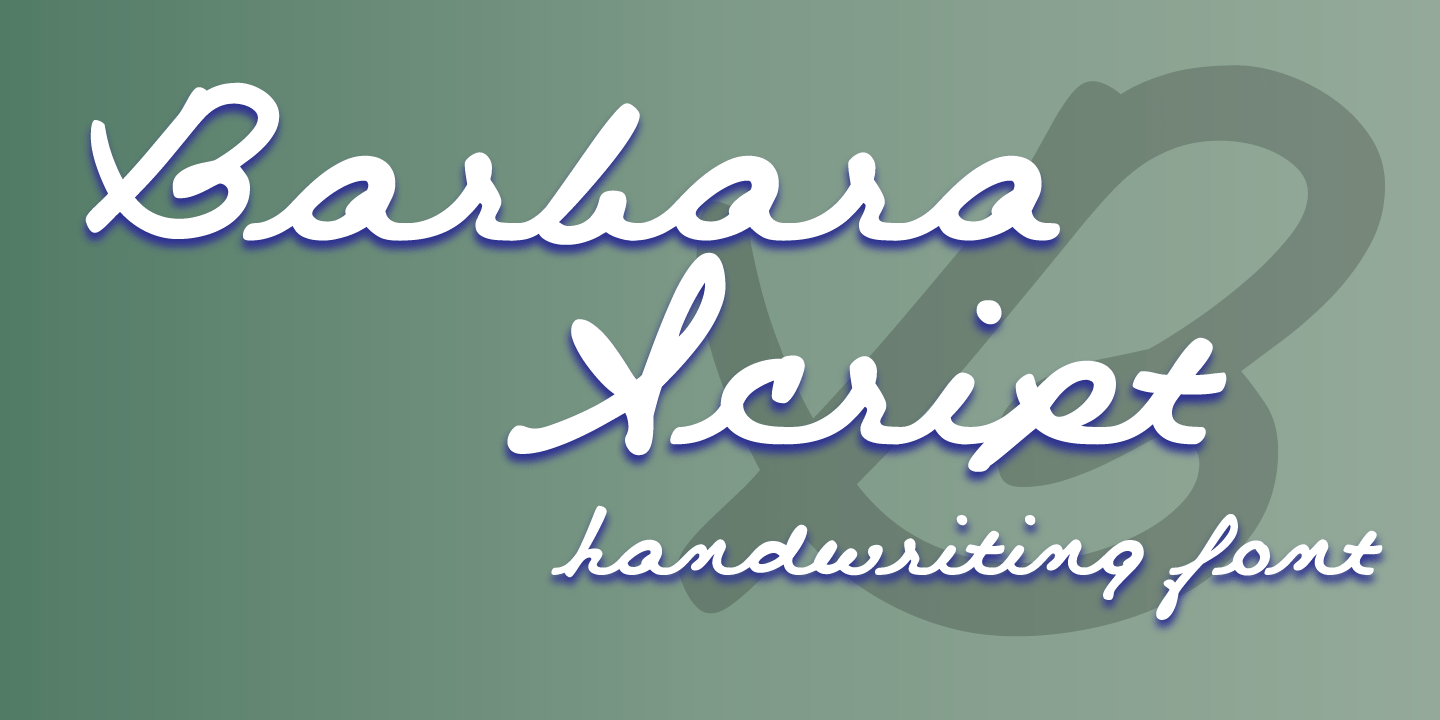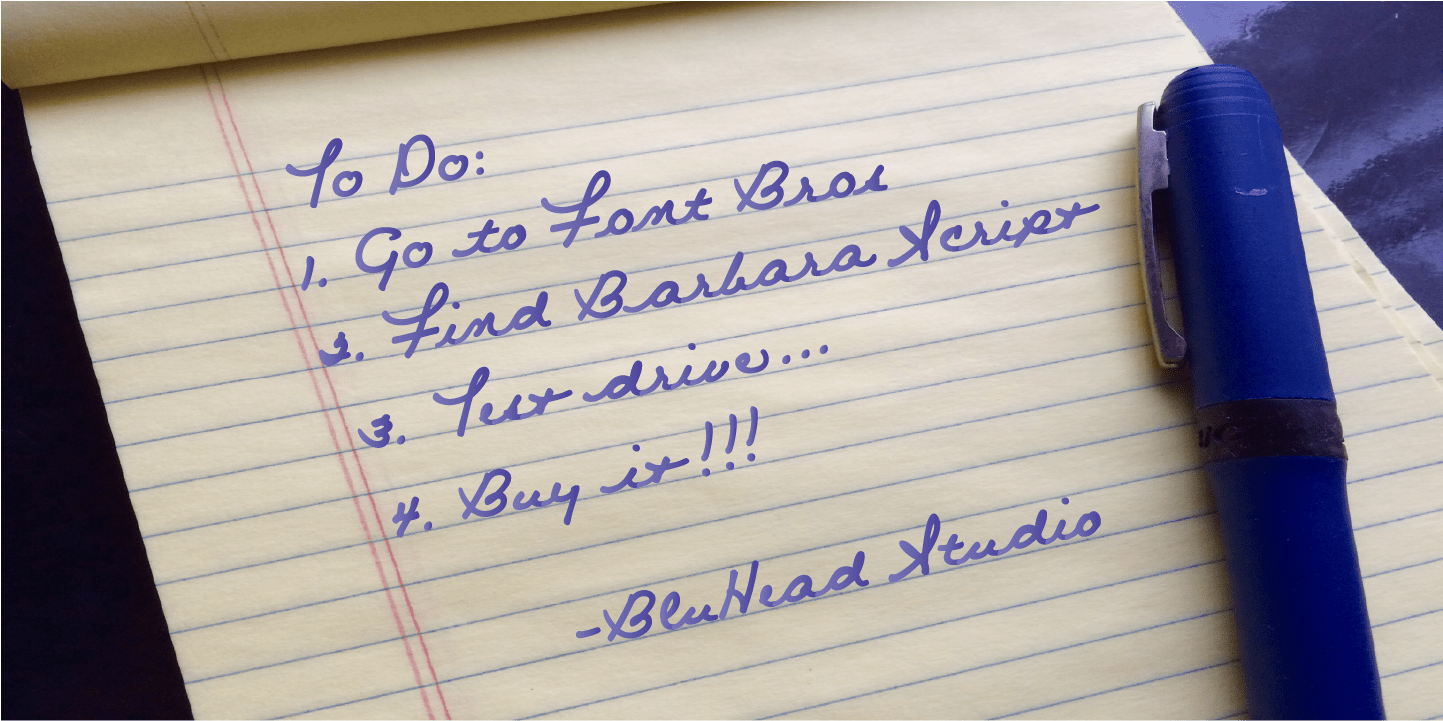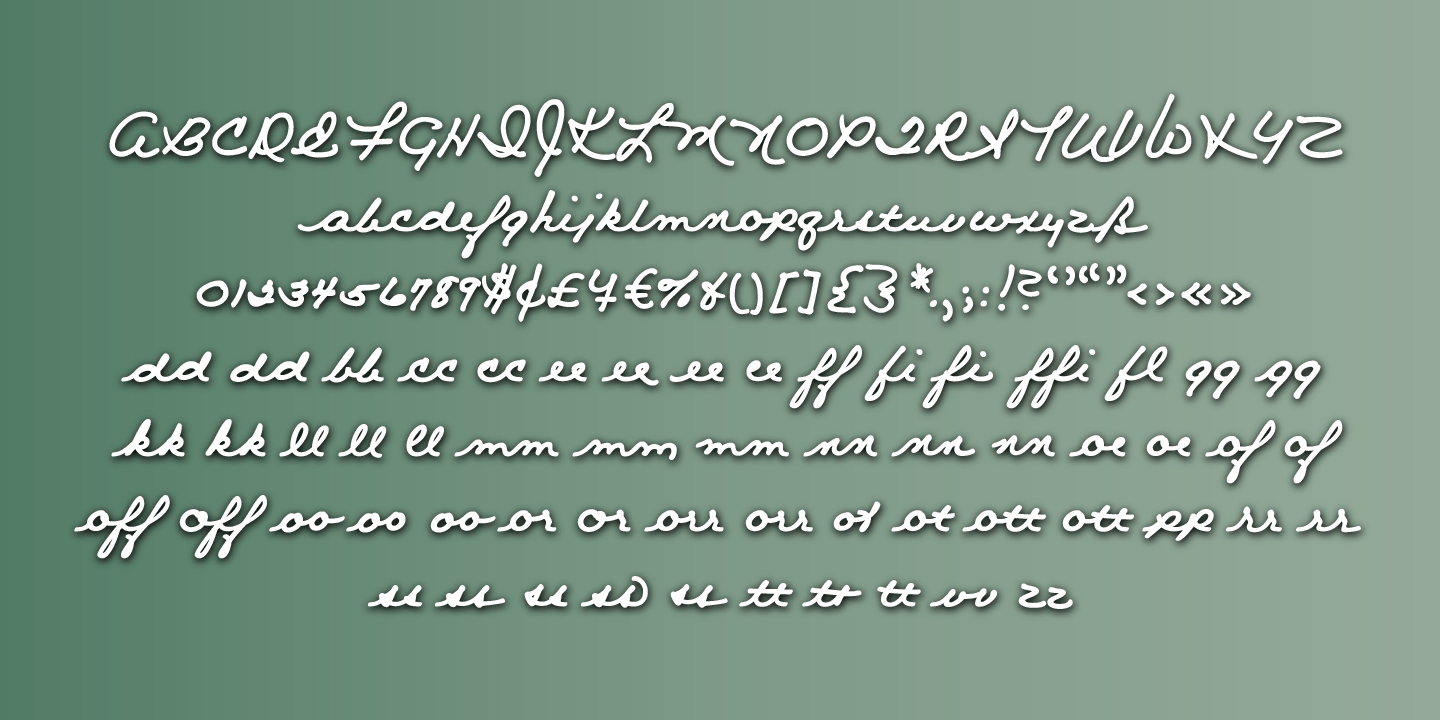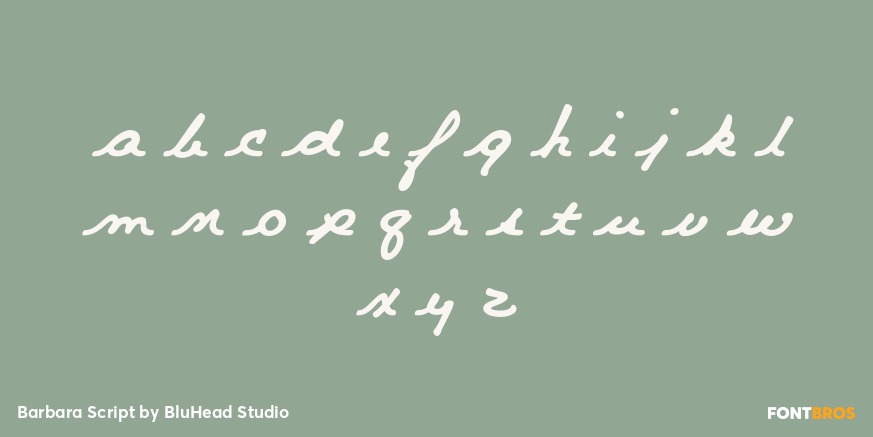
Barbara Script
Font Family by BluHead Studio
Based on the handwriting of a friend, Barbara Script is a connecting script font that uses the OpenType ligature and contextual swash features to substitute 59 ligatures and 93 alternates to automatically recreate the look and feel of the natural variations in handwriting! The font supports an extended European character set.